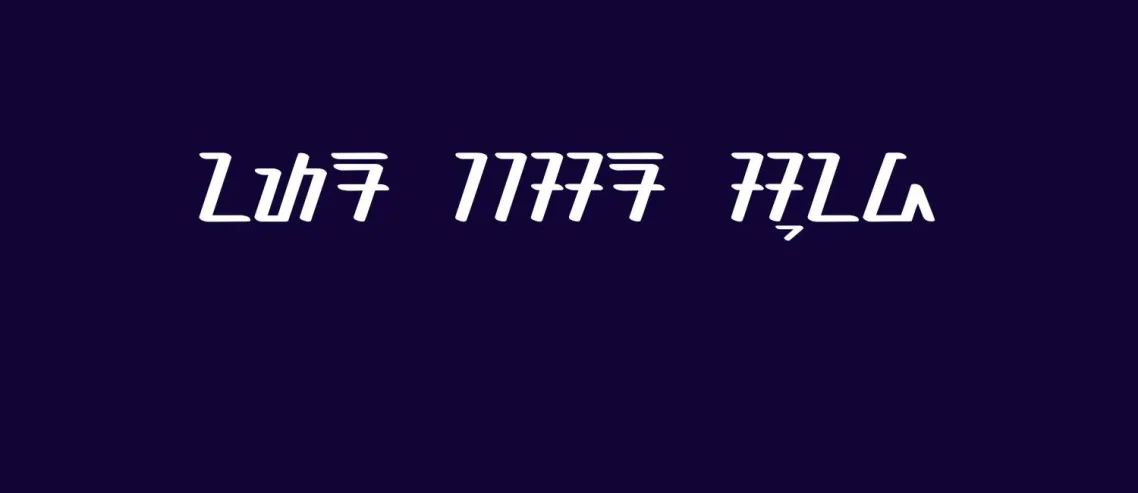
Antara Aksara Sunda Font Free Download
Antara Aksara Sunda is a font created specifically for the Sundanese script, which is utilized in the Sundanese language spoken in Indonesia. This font is customized to accurately showcase the distinct characters of the Sundanese script.
Just like how English has its alphabet, the Sundanese language has its unique script, and this font helps in visually presenting those characters. It’s a tool that contributes to preserving and promoting the Sundanese cultural and linguistic identity.